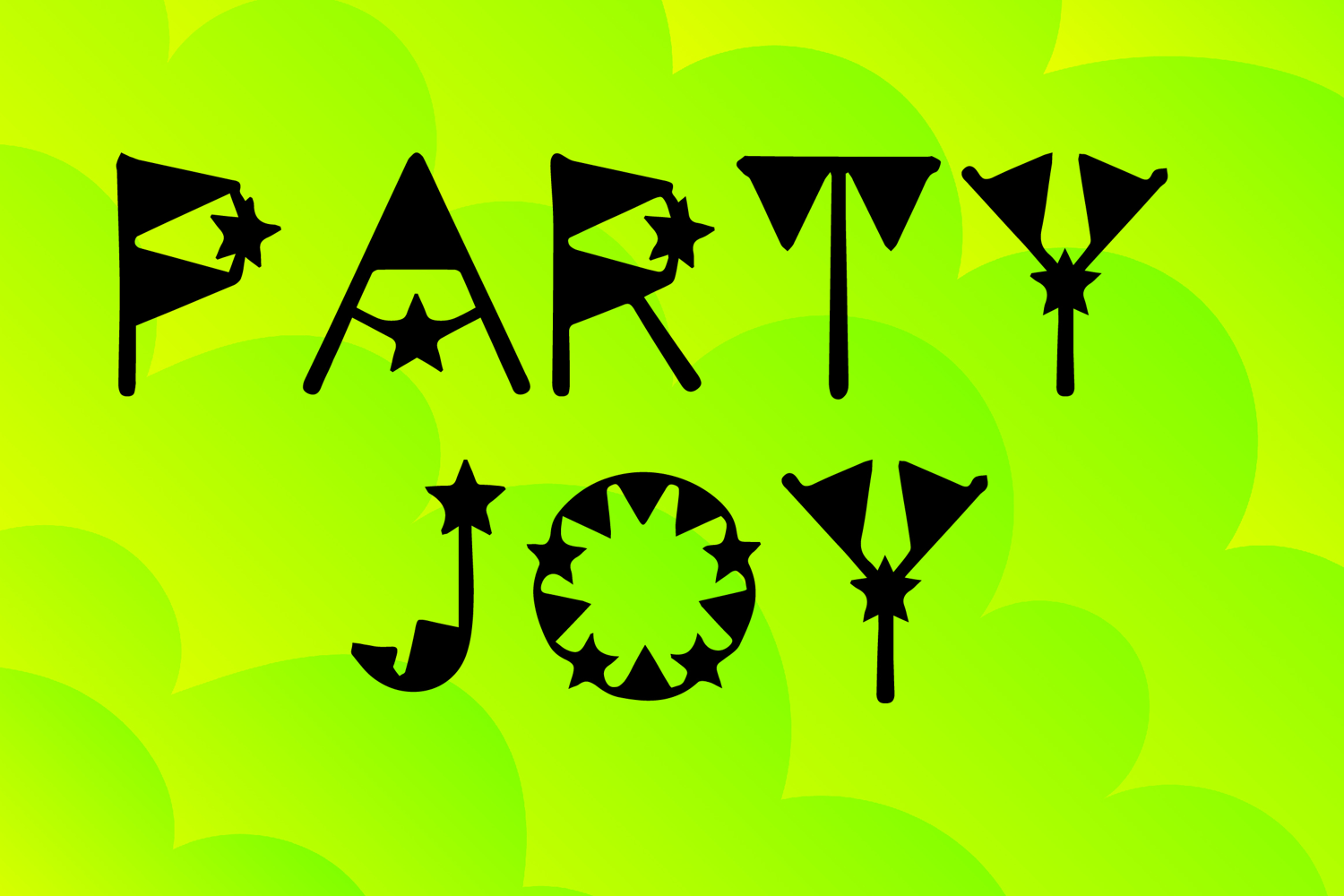
Party Joy
Party Joy is a playful decorative display font with a festive handcrafted style and bold whimsical charm. Its uppercase letterforms feature star-shaped accents, creative cutout details, and quirky geometric forms that create a fun, energetic, and eye-catching look. Designed with uppercase letters A–Z and numbers 0–9, Party Joy is perfect for party invitations, posters, packaging, kids’ designs, branding, social media graphics, and creative projects that need a cheerful and memorable statement.